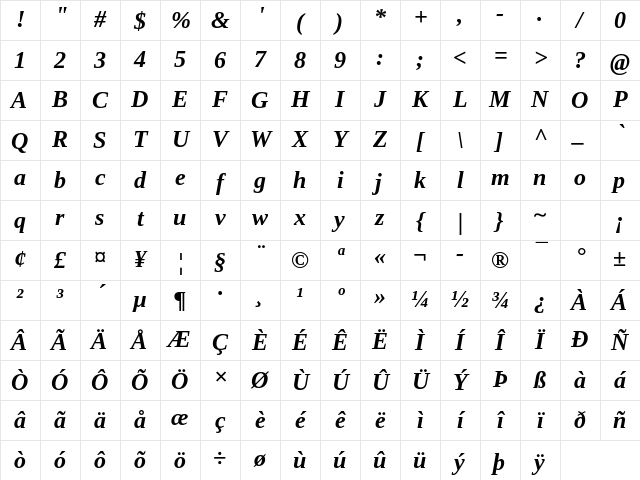
LiterationSerif Nerd Font Bold Italic
Foundry: Ascender Corporation
Designer: Steve Matteson
LiterationSerif Nerd Font Family
Design Context for LiterationSerif Nerd Font
LiterationSerif Nerd Font carries the refined structure of traditional serif typography, with bracketed terminals and considered proportions that communicate credibility and craft. The slanted form adds forward momentum and visual energy. Its bold stroke weight gives it real presence on the page.